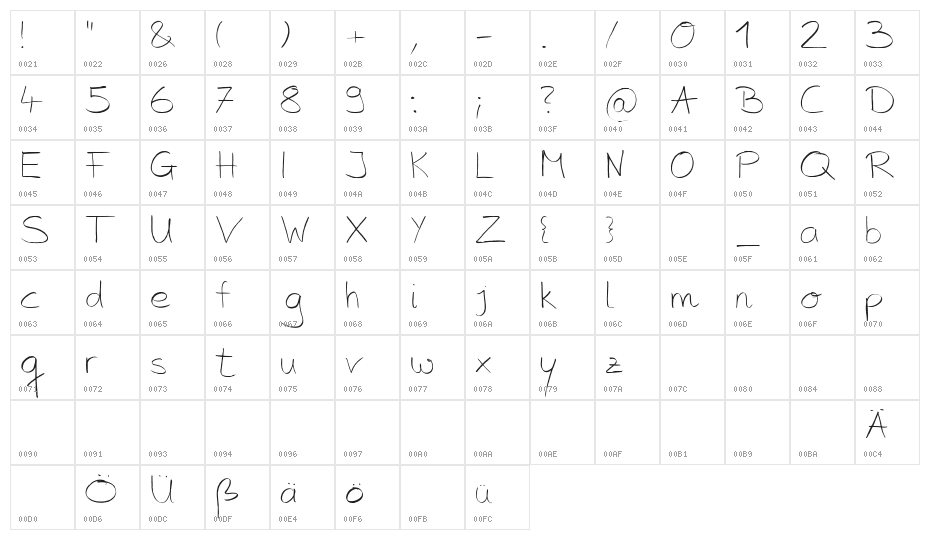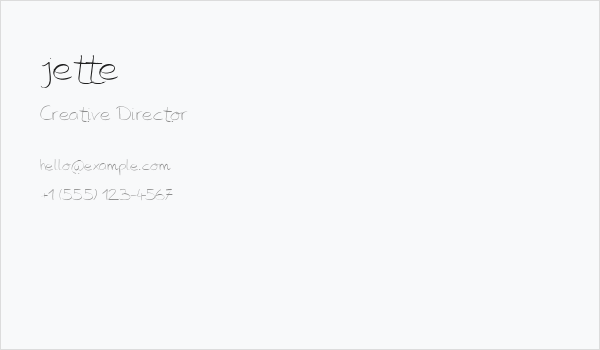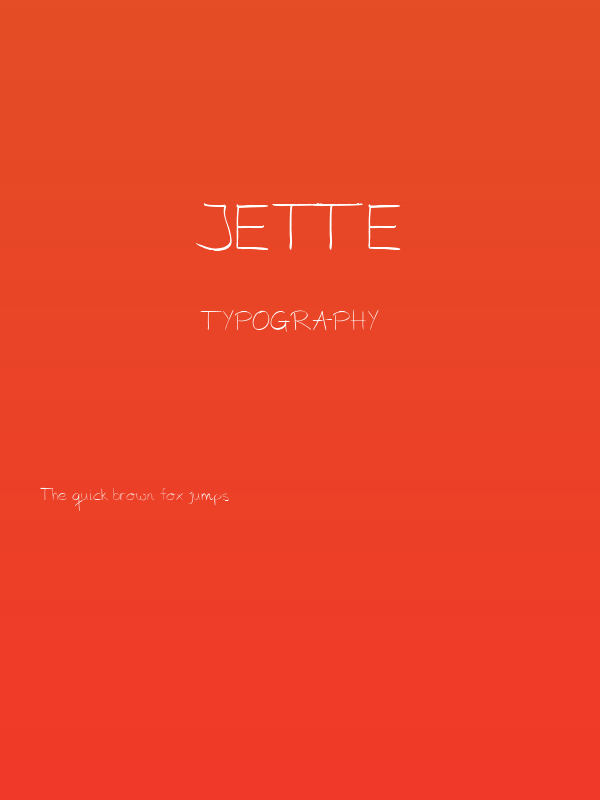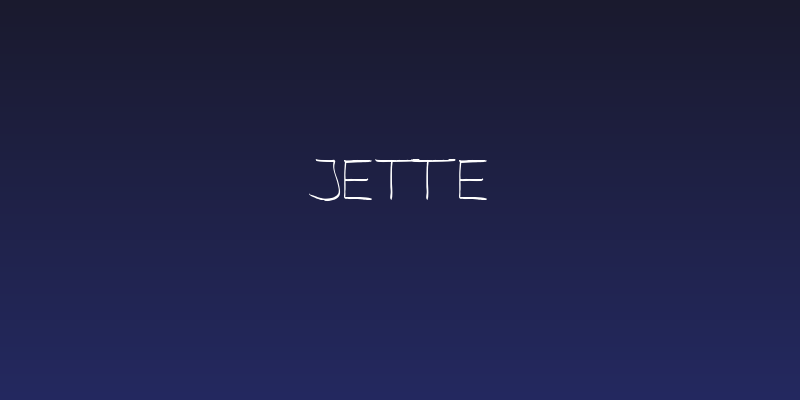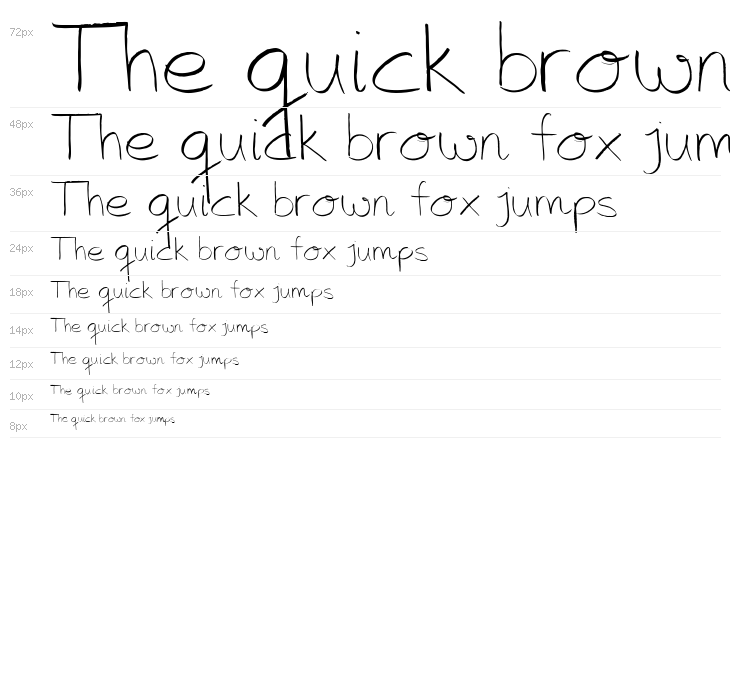
jette Font
| Gesamtstil | Casual, Playful |
| Anwendungsfall | Headlines, Informal text, Creative projects |
| Vorgeschlagene Projekte | Ideal for greeting cards, personal invitations, children's books, and creative branding. |